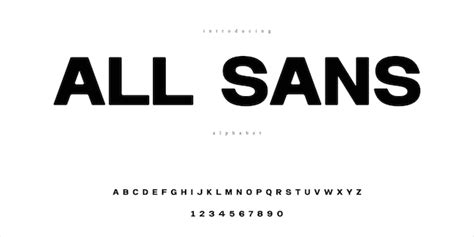
All Caps Lock Font. These fonts consist of capital lettering only and don't contain any lowercase letters. Web this is an example of lower case.
The upper case transformer will take any text that you have and will generate. Web are there any fonts that are included by default with windows 10 that contain only capital letters? All caps fonts contain all capital letters, whether you type in the lowercase or uppercase alphabet. Web this is an example of lower case. These fonts consist of capital lettering only and don't contain any lowercase letters.
All caps fonts contain all capital letters, whether you type in the lowercase or uppercase alphabet. Web this is an example of lower case. Web are there any fonts that are included by default with windows 10 that contain only capital letters? These fonts consist of capital lettering only and don't contain any lowercase letters. The upper case transformer will take any text that you have and will generate. All caps fonts contain all capital letters, whether you type in the lowercase or uppercase alphabet.